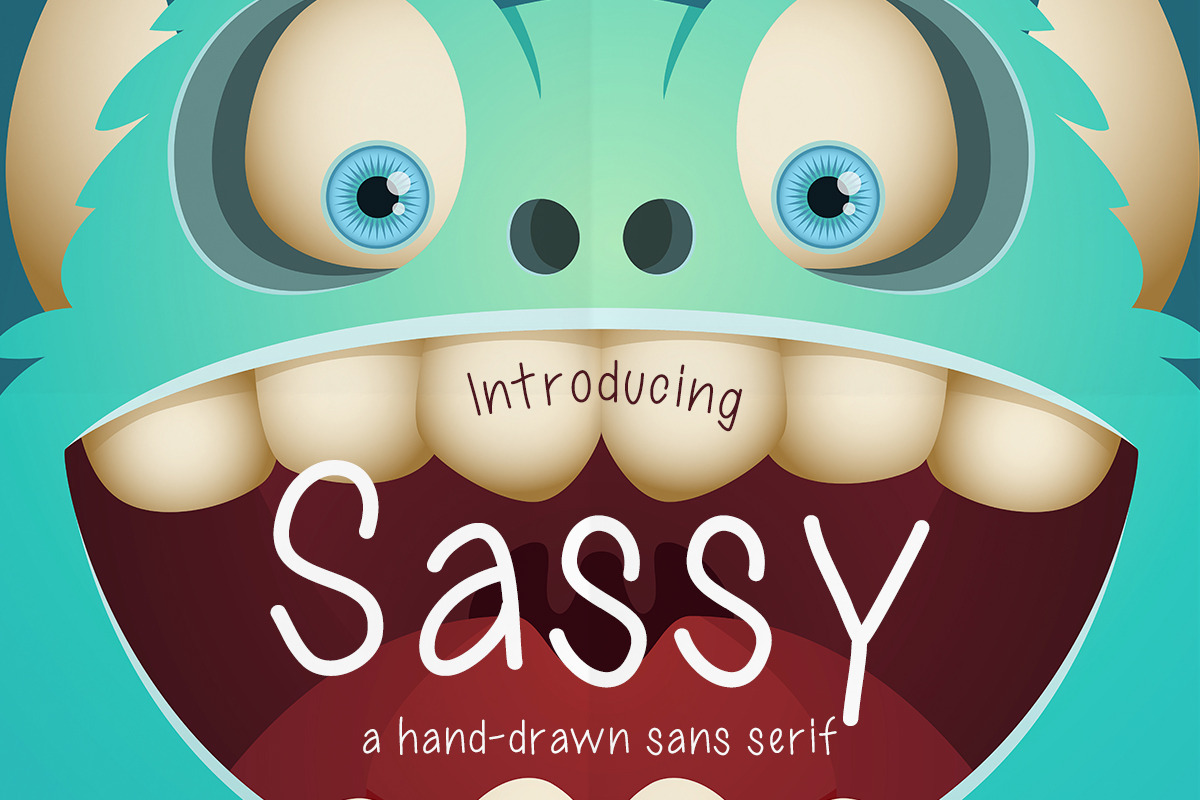
Sassy: a Hand-Drawn Sans Serif Font
Introducing Sassy: a sans serif font!
Sassy is a cute handwritten font. It maintains its classy calligraphic influences while feeling contemporary and fresh. This versatility will appeal to a wide range of crafty ideas, from letterheads and titles, to stationery.
This font is perfect for:
• greeting cards
• packaging
• social media and more!
As the nature of the characters is hand-drawn some "wonky" lines might be found which helps to add another touch of organic in the font!